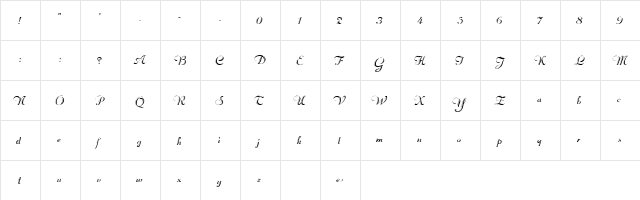
Rechtman Script
| Style | Script |
Design Context for Rechtman Typeface
Rechtman brings a calligraphic fluidity to the page — its connecting strokes and expressive curves give it an unmistakably human quality.
Font Pairing: Combine Rechtman with a simple geometric sans for maximum contrast — the tension between flowing curves and clean structure is a classic typographic pairing.
Pro Tip: Pair Rechtman with a clean sans-serif for supporting text. The contrast between fluid script and geometric structure creates an elegant typographic hierarchy.